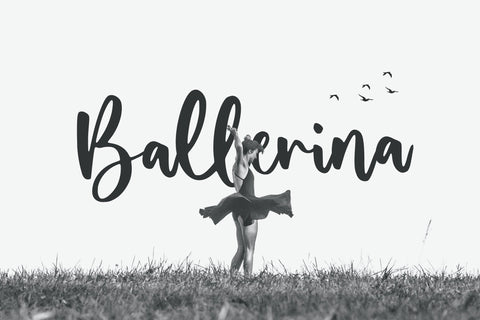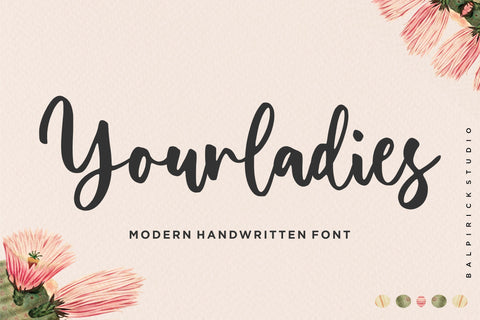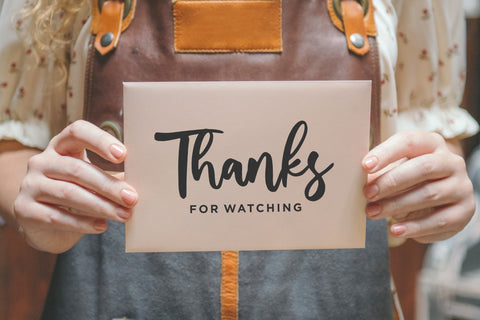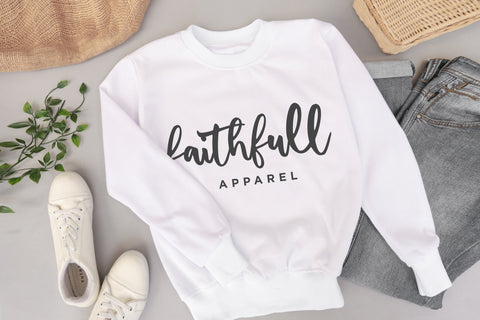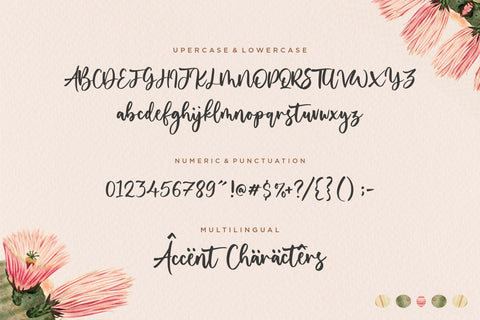
Yourladies Modern Handwritten Font
Proudly Present, Yourladies Font.
Yourladies is a Modern Handwritten Font.
Yourladies is a sweet and delicate handwritten font. Dainty and joyful, this font will be ideal for writing wedding invitations, cards or any other design that may need a romantic, personalized touch!